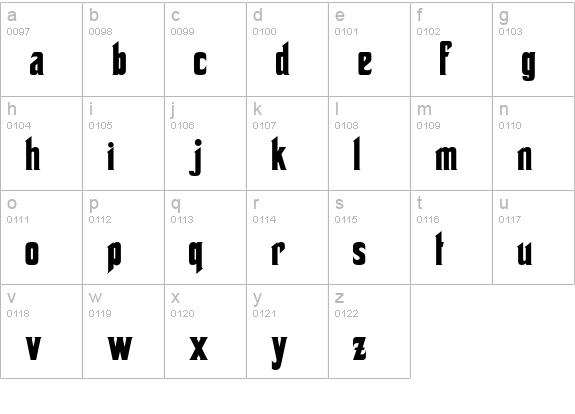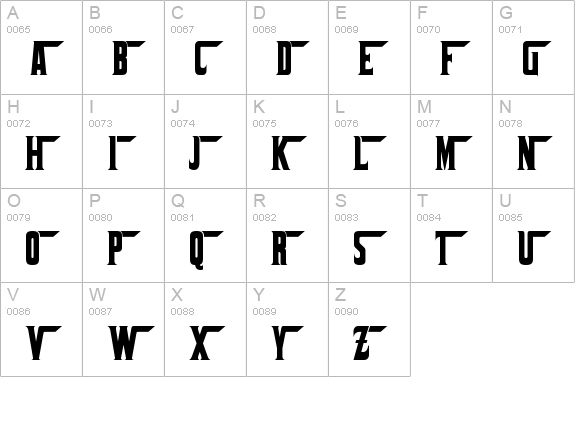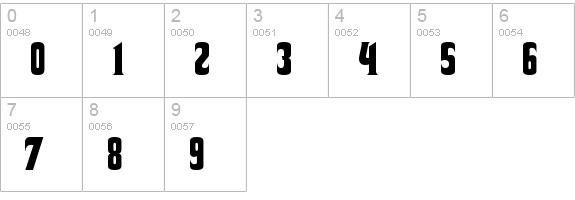
Corleone Font Details
Introducing Corleone, a stunningly elegant font that exudes sophistication and charm. With its sleek and stylish design, Corleone is perfect for adding a touch of class to any project. Whether you're working on a logo, branding materials, or invitations, this font will elevate your design to new heights. Corleone features clean lines and delicate curves, creating a sense of balance and harmony. Its timeless appeal makes it suitable for a wide range of applications, from fashion magazines to high-end websites. The versatility of Corleone allows it to effortlessly adapt to any creative vision, making it a must-have for designers and typographers alike. What sets Corleone apart is not only its exceptional aesthetics but also its accessibility. This font is available for free download at FontsMarket.com, ensuring that anyone can enjoy its beauty. By offering Corleone freely, we aim to empower creatives and provide them with the tools they need to bring their unique visions to life. So why wait? Give your designs the touch of luxury they deserve with Corleone. Download this font today at FontsMarket.com and discover the endless possibilities it holds for your next project.